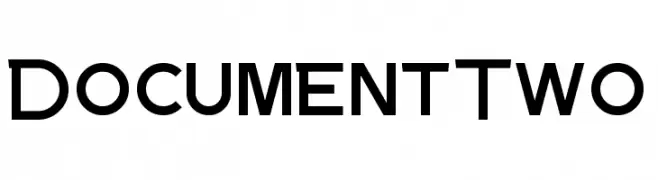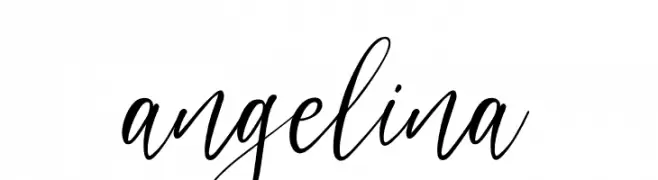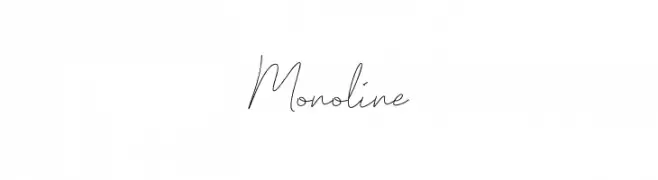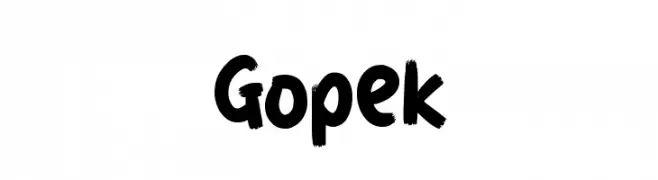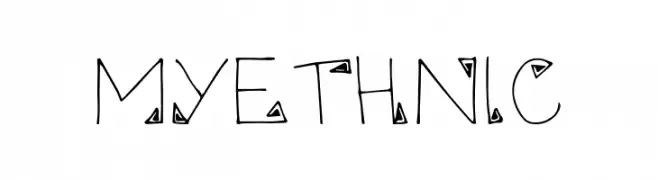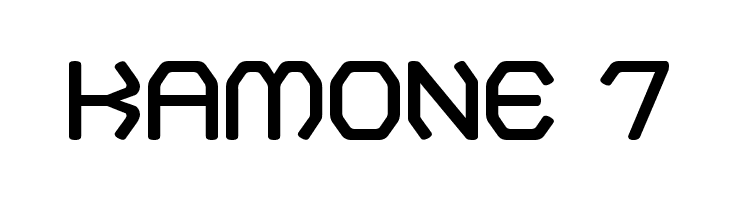
An elegant script font with flowing, interconnected letters and high contrast strokes.
A bold, modern sans-serif font with geometric lines and uniform width.
An elegant, flowing script font with smooth, cursive strokes and graceful curves.
An elegant, flowing script font with thin, continuous strokes.
A thin, modern sans-serif font with clean lines and a minimalist style.
A bold, expressive brush-style font with dynamic, hand-painted strokes.
A bold, brush-style font with an energetic and handcrafted appearance.
A bold, decorative font with a snowflake pattern, perfect for festive themes.
A dynamic and fluid brush script font with elegant, flowing letterforms.
A decorative font with geometric patterns and thin outlines.